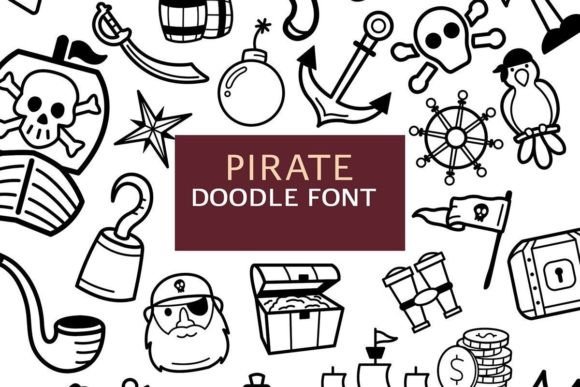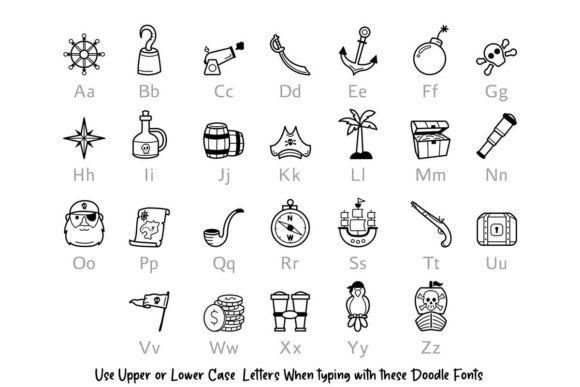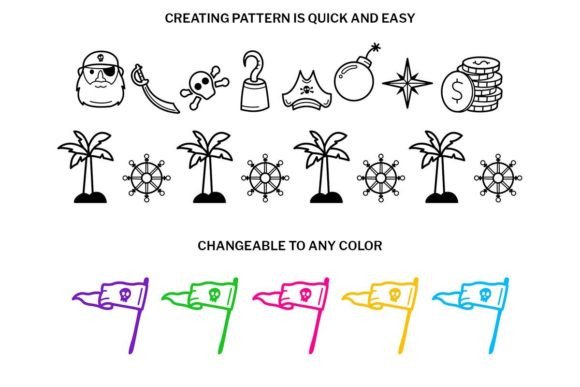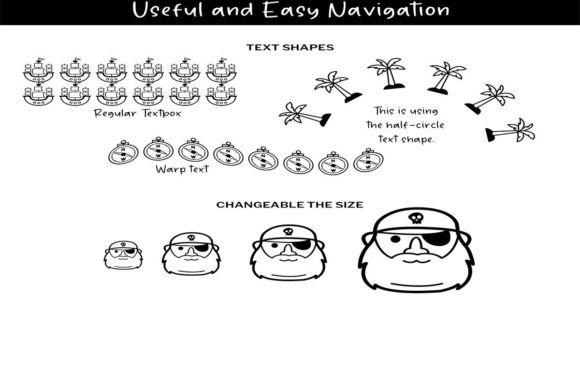
Pirate Doodle Font
About the Pirate Doodle Font
Add a touch of class to your work with the Pirate Doodle Font, a truly exceptional typeface. Pirate Doodle is a fun and cute dingbat font. Its versatility makes it great for a wide pool of craft projects, designs, planners, diaries, activity books, or anything that your heart desires!
Pirate Doodle’s playful, hand-drawn aesthetic makes it ideal for children’s books, playful branding for businesses targeting a younger demographic, and fun, eye-catching social media graphics. It works exceptionally well in headlines, short phrases, and decorative elements, adding a whimsical touch. However, its informal nature makes it unsuitable for large amounts of body text or applications requiring high readability, such as website copy or UI elements.
Pair Pirate Doodle with a clean sans-serif like Open Sans for contrast and readability in projects that need both playful and practical elements. Alternatively, a classic serif like Playfair Display can add a touch of sophistication, balancing the font’s informal charm. For a more cohesive whimsical look, consider pairing it with a similarly hand-drawn script font.
The overall personality is undeniably fun and friendly, but with a touch of boldness. It projects a sense of lighthearted adventure, making it perfect for projects requiring a sense of childlike wonder or playful rebellion.
Pirate Doodle Font Usage Examples
Pirate Doodle Font Example